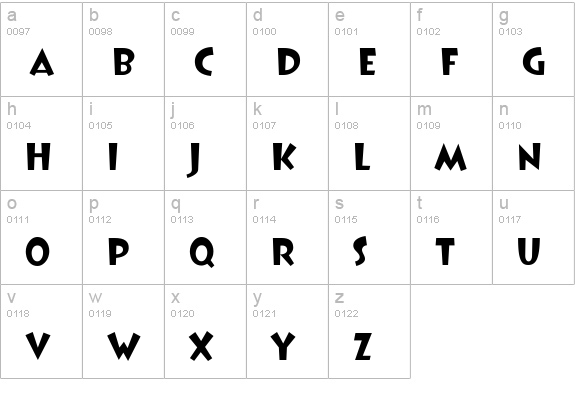
BoogieWoogieHmk Font Details
BoogieWoogieHmk is a whimsical and lively font that exudes a sense of fun and playfulness. Its quirky design and bouncy letterforms make it perfect for adding a touch of joy to your projects. The unique character of BoogieWoogieHmk will bring a sense of energy and creativity to any design it is used in. Whether you're working on a poster, invitation, or branding project, this font will make your text stand out and leave a lasting impression. Best of all, BoogieWoogieHmk is available for free download at FontsMarket.com. This means you can easily access this delightful font and start incorporating it into your designs right away. Don't miss out on the opportunity to add a touch of whimsy to your projects with the charming BoogieWoogieHmk font. Download it today and let your creativity shine!